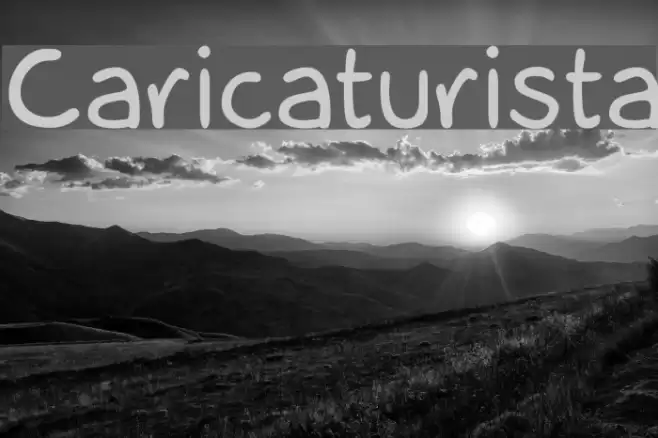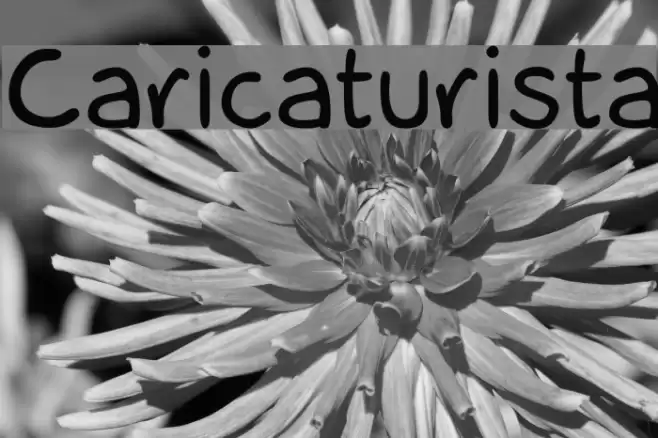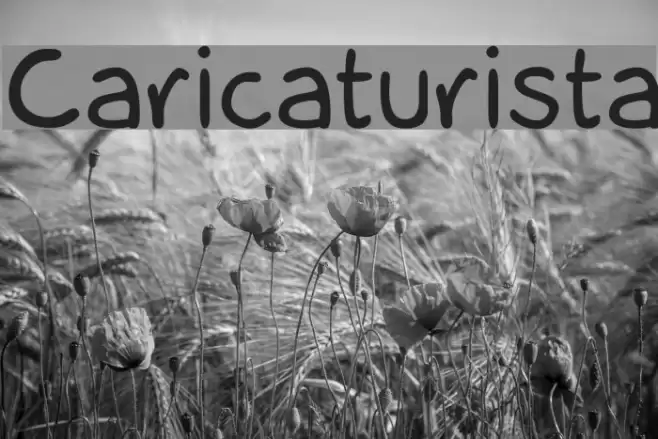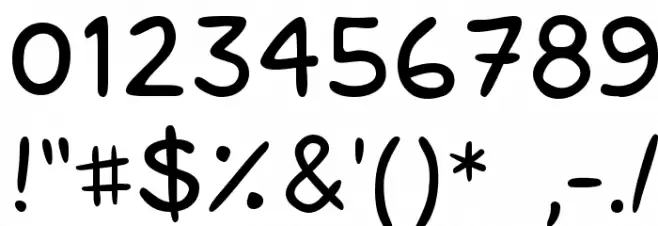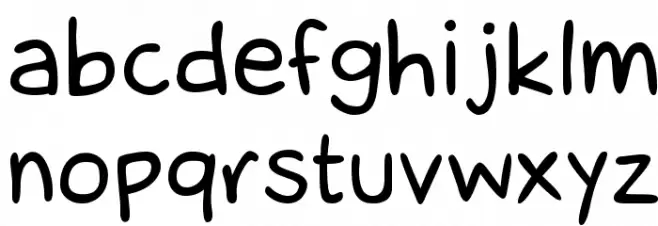
Caricaturista Font
Caricaturista Description
This playful and whimsical font features rounded, hand-drawn characters that exude a sense of fun and creativity. The letters are slightly irregular, giving them a casual and informal appearance. The strokes are consistent in width, contributing to a harmonious and balanced look. The font includes both uppercase and lowercase letters, numerals, and a variety of special characters, making it versatile for different uses. Its approachable style is perfect for projects that aim to convey friendliness and approachability.
A playful, hand-drawn font with rounded, casual characters from Comic fonts.
- Proposed Projects: Ideal for children's books, comic strips, playful branding, and greeting cards.
- Overall Style: Casual
- Use Case: Headlines, Logos, Informal Text